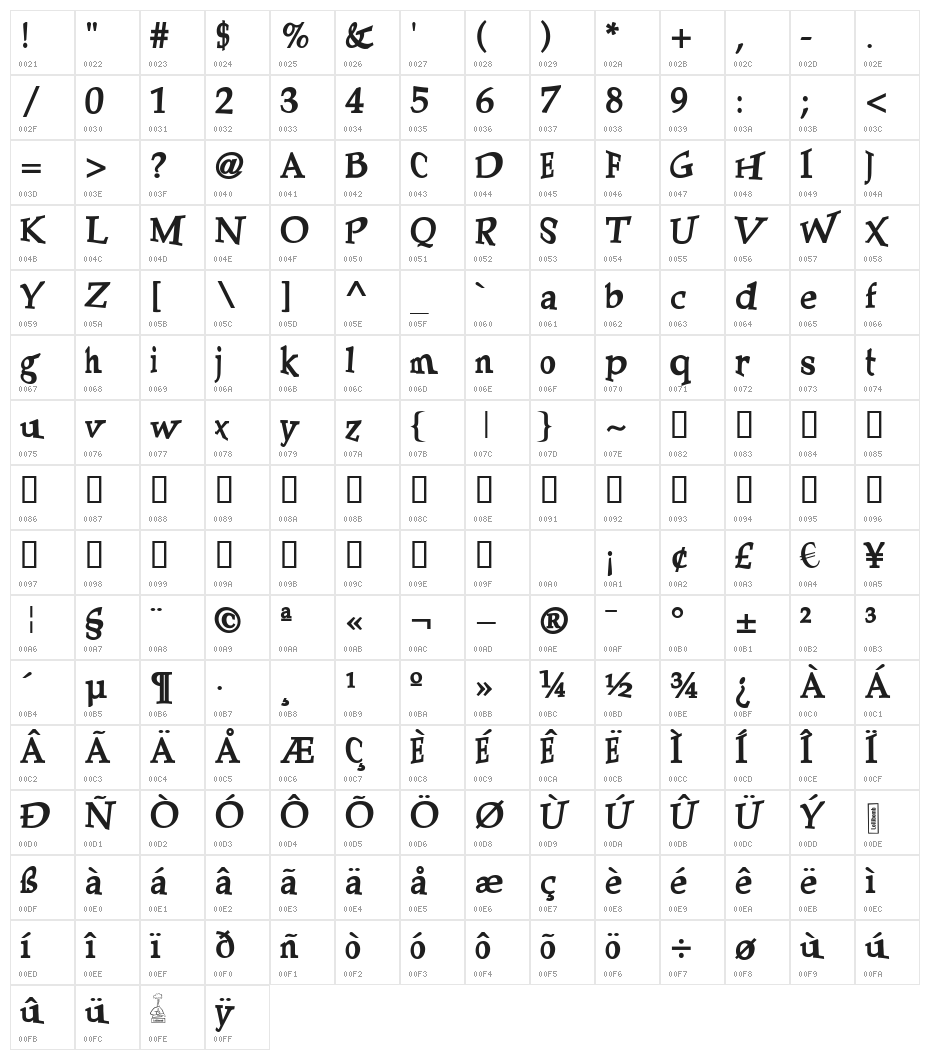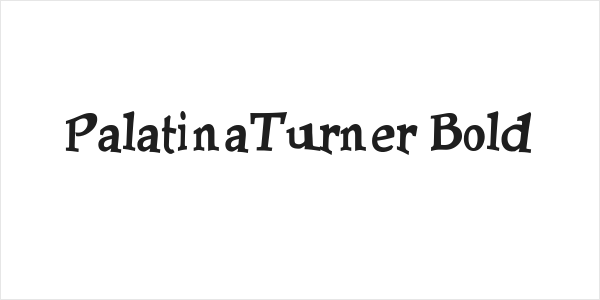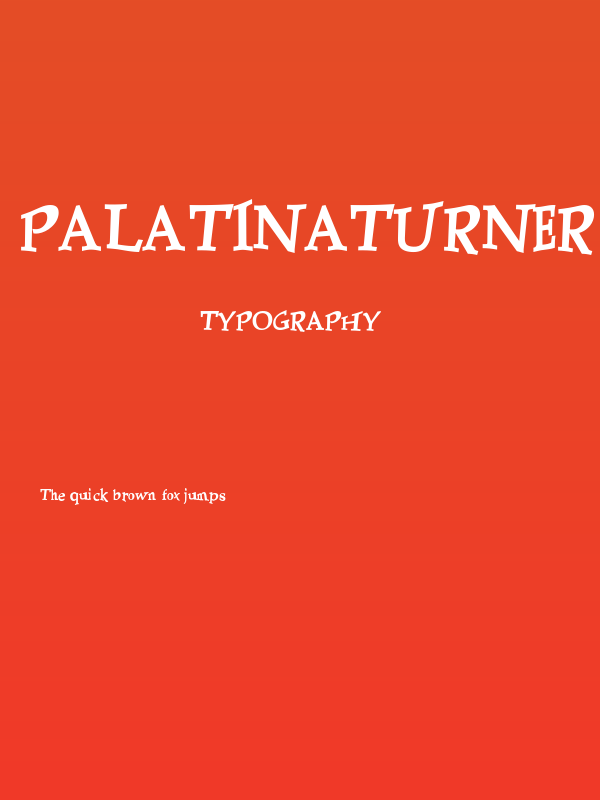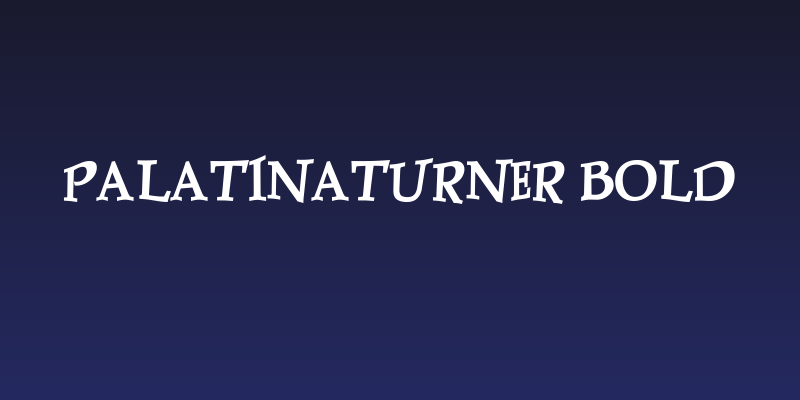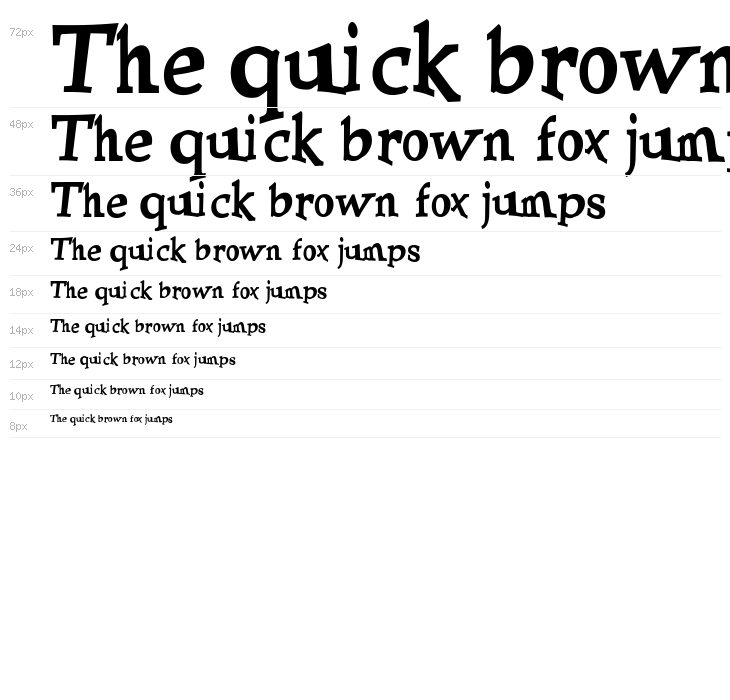
PalatinaTurner Bold Font
PalatinaTurner Bold Description
This font features a bold and dynamic style with a playful twist. The characters have a slightly irregular and whimsical appearance, giving them a unique and artistic flair. The uppercase letters are bold and commanding, while the lowercase letters maintain a consistent style with a touch of eccentricity. The numerals are clear and distinct, matching the overall boldness of the font. Special characters are creatively designed, adding to the font's decorative appeal. This font is perfect for projects that require a bold statement with a touch of creativity.
| Proposed Projects | Ideal for posters, headlines, logos, and creative branding projects. |